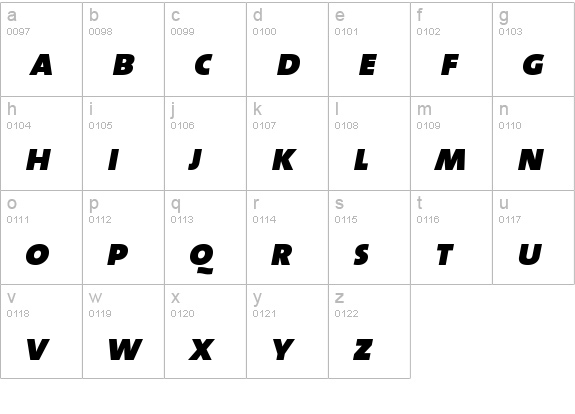
TheSans Black Caps Italic Font Details
TheSans Black Caps Italic is a maximum-weight, dramatic, italic variant in the TheSans typeface family \xE2\x80\x94 well suited to maximum-impact headlines, posters, and packaging.
TheSans Black Caps Italic is a magnificent font that combines elegance, uniqueness, and versatility. Its bold and slender design exudes confidence and sophistication, making it an ideal choice for projects that require a strong and impactful presence. With its distinctive slanted style, TheSans Black Caps Italic adds a touch of dynamism and flair to any text. Whether used for headlines, logos, or branding materials, this font captures attention and leaves a lasting impression. The characters in TheSans Black Caps Italic are meticulously crafted, featuring clean lines and precise curves. The boldness of the letters creates a strong visual impact, while the italics add a touch of expressiveness and charm. One of the best aspects of TheSans Black Caps Italic is that it is available for free. You can easily download this font at FontsMarket.com, a trusted source for high-quality fonts. By making it freely accessible, TheSans Black Caps Italic encourages creativity and allows designers, artists, and enthusiasts to explore its potential without any limitations. Whether you are working on a professional project or simply want to enhance your personal creations, TheSans Black Caps Italic is a font that will elevate your designs to new heights. Its timeless appeal and versatile nature make it a must-have in any font collection. So why wait? Download TheSans Black Caps Italic for free at FontsMarket.com and unlock a world of possibilities.